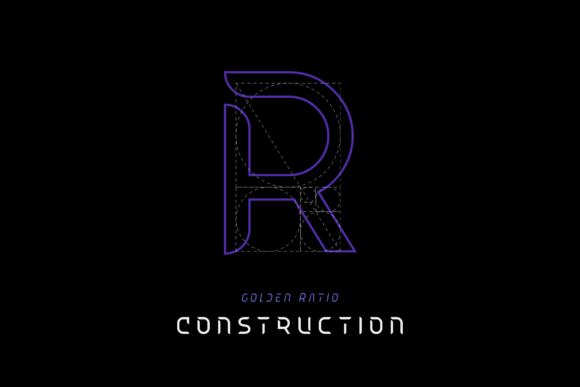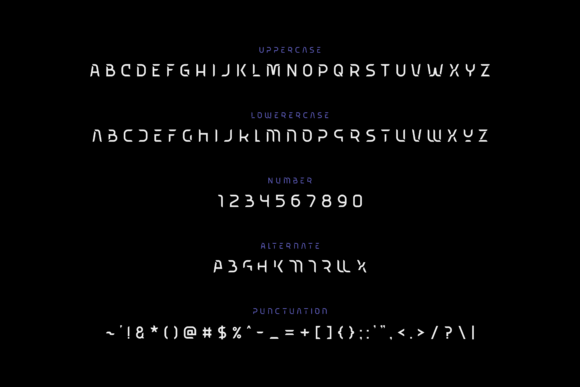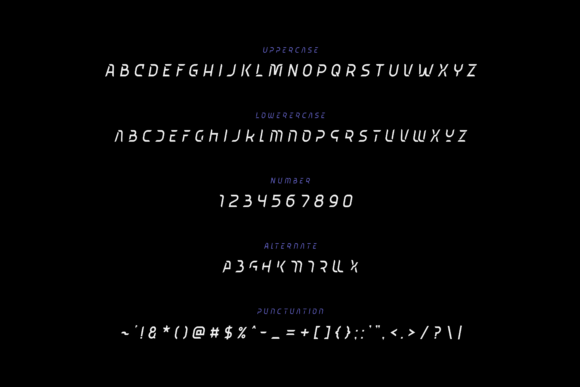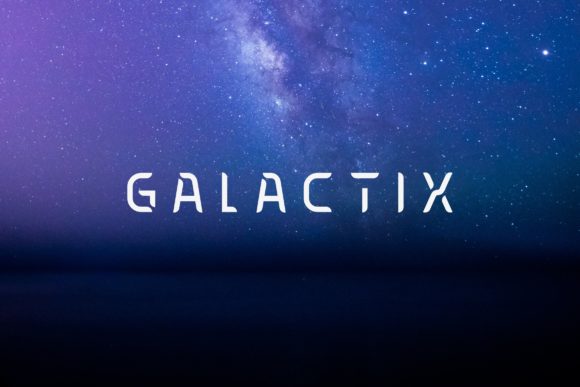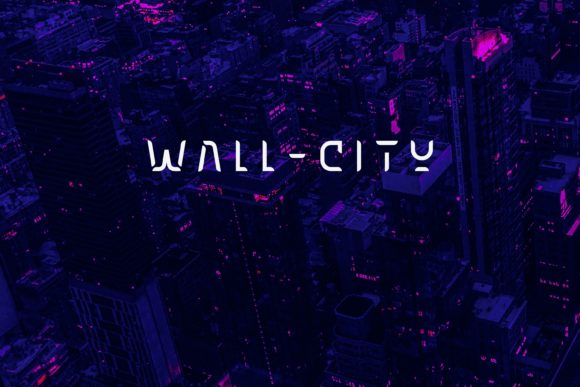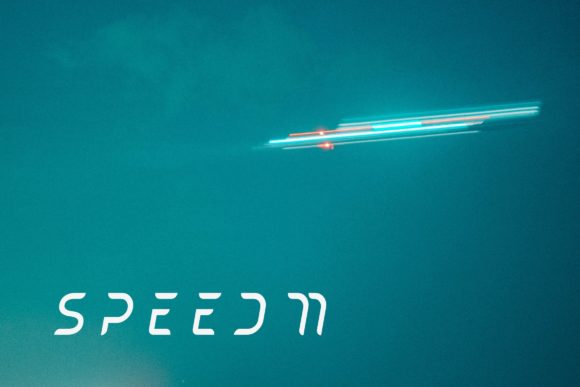
Introducing Hebring Font: Elevate Your Designs with a Modern Twist
In the world of design, typography plays a crucial role in conveying messages, expressing creativity, and capturing the audience’s attention. When it comes to making a statement, a font can make all the difference. This is where Hebring Font comes into play – a modern styled display font designed to add a cool and interesting touch to your work.
What is Hebring Font?
Hebring is a contemporary display font that has been crafted to help designers and crafters elevate their designs. Its modern aesthetic makes it an ideal choice for a wide range of applications, from logos and branding to titles, subtitles, and more. With Hebring, you can add a fresh and trendy vibe to your projects, setting them apart from the rest.
Key Features of Hebring Font
- Modern Design: Hebring boasts a sleek and modern design that is sure to catch the eye. Its clean lines and stylish curves make it perfect for designs that require a contemporary feel.
- Versatility: This font is incredibly versatile, making it suitable for various design projects, including logos, branding, titles, subtitles, and more.
- High-Impact: With Hebring, you can create high-impact designs that demand attention. Its bold and expressive style ensures that your message is conveyed effectively.
- Easy to Read: Despite its bold nature, Hebring remains easy to read, making it a practical choice for designs that require both style and substance.
Use Cases for Hebring Font
Hebring’s flexibility makes it an excellent addition to any designer’s toolkit. Here are some use cases where Hebring truly shines:
- Logos and Branding: Create a lasting impression with a logo that stands out. Hebring’s modern style is perfect for brands looking to appear fresh and contemporary.
- Posters and Flyers: Whether you’re advertising an event, promoting a product, or announcing a service, Hebring can help your posters and flyers grab attention.
- Web Design: Enhance your website’s visual appeal with Hebring. Use it for headings, titles, and call-to-actions to create a dynamic user experience.
- Social Media Graphics: Make your social media posts stand out with Hebring. It’s perfect for creating engaging headlines and titles that pop.
Tips for Using Hebring Font Effectively
To get the most out of Hebring, consider the following tips:
- Pair it with Simplicity: Hebring’s bold style can be overwhelming if overused. Pair it with simpler fonts for body text to create visual balance.
- Experiment with Colors: Don’t be afraid to experiment with different colors. Hebring looks great in bold, bright colors but can also be elegant in subtle, muted tones.
- Consider Size: Hebring is designed to make a statement. Use it in larger sizes to maximize its impact, especially for headings and titles.
Hebring Font is a powerful tool for designers and crafters looking to add a modern twist to their work. Its stylish design, versatility, and high-impact nature make it an excellent choice for a wide range of design projects. By incorporating Hebring into your designs, you can create visually appealing and engaging content that captures your audience’s attention. So, why settle for ordinary when you can make a statement with Hebring?
Hebring Font is more than just a typeface – it’s a design statement. With its modern style and versatile nature, it’s an invaluable asset for anyone looking to create impactful designs. Whether you’re a professional designer or a DIY enthusiast, Hebring can help you achieve your creative goals.